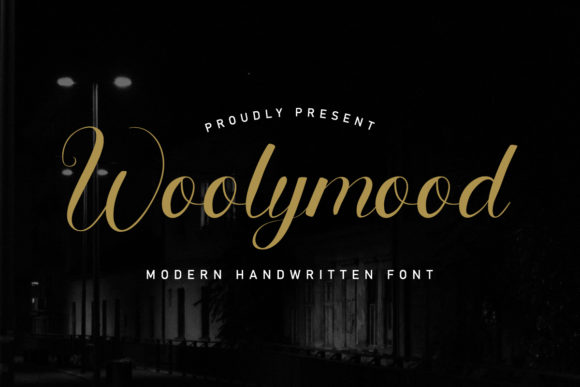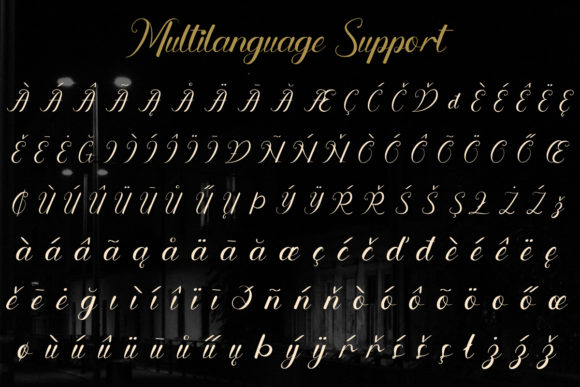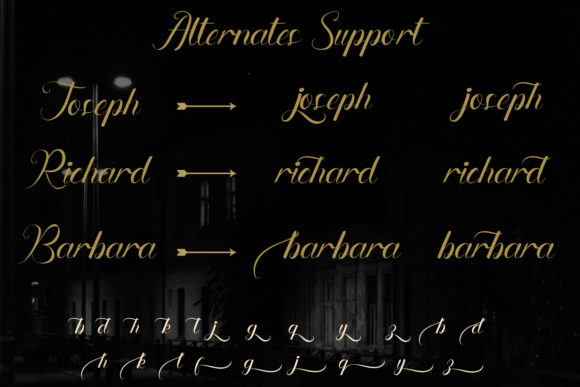
About Woolymood Font
Woolymood is a refined and classic cursive handwritten font that exudes elegance and charm. With its ravishing and well-balanced characters, this font is a perfect match for a wide range of design projects. Adding Woolymood to your creative ideas will bring them to life with a touch of sophistication and style.
The timeless and graceful nature of Woolymood makes it a versatile font that can be used in various design contexts. Whether you’re creating logos, branding materials, invitations, greeting cards, or any other visual project, Woolymood adds a touch of refinement and aesthetic appeal. Its cursive style adds a sense of fluidity and movement, making your designs visually captivating and engaging.
The balanced and harmonious characters of Woolymood ensure readability while maintaining an elegant appearance. Each letter is carefully crafted to create a cohesive and visually pleasing composition, allowing your message to be conveyed effortlessly.
One of the great features of Woolymood is its ability to adapt to different design themes and styles. It complements both modern and vintage-inspired designs, adding a classic touch that transcends trends. Whether you’re aiming for a sophisticated and formal look or a more whimsical and romantic feel, Woolymood can effortlessly enhance your design aesthetic.
By incorporating Woolymood into your creative projects, you elevate them to a new level of refinement and visual appeal. The font’s versatility allows it to enhance a wide range of design concepts, providing a timeless and elegant touch that captures attention and leaves a lasting impression.
In conclusion, Woolymood is a refined, classic, and cursive handwritten font that brings elegance and balance to your designs. Its well-crafted characters and versatile nature make it suitable for a wide range of design applications. By utilizing Woolymood in your creative ideas, you can bring them to life with a touch of sophistication and visual allure.